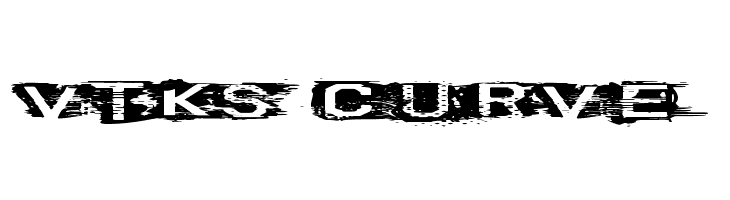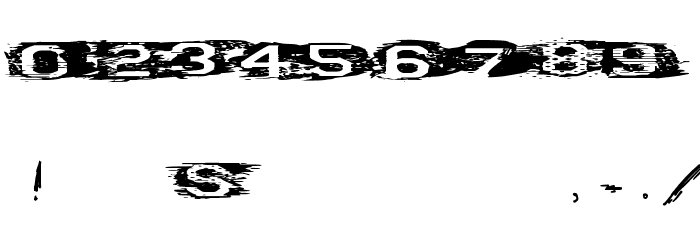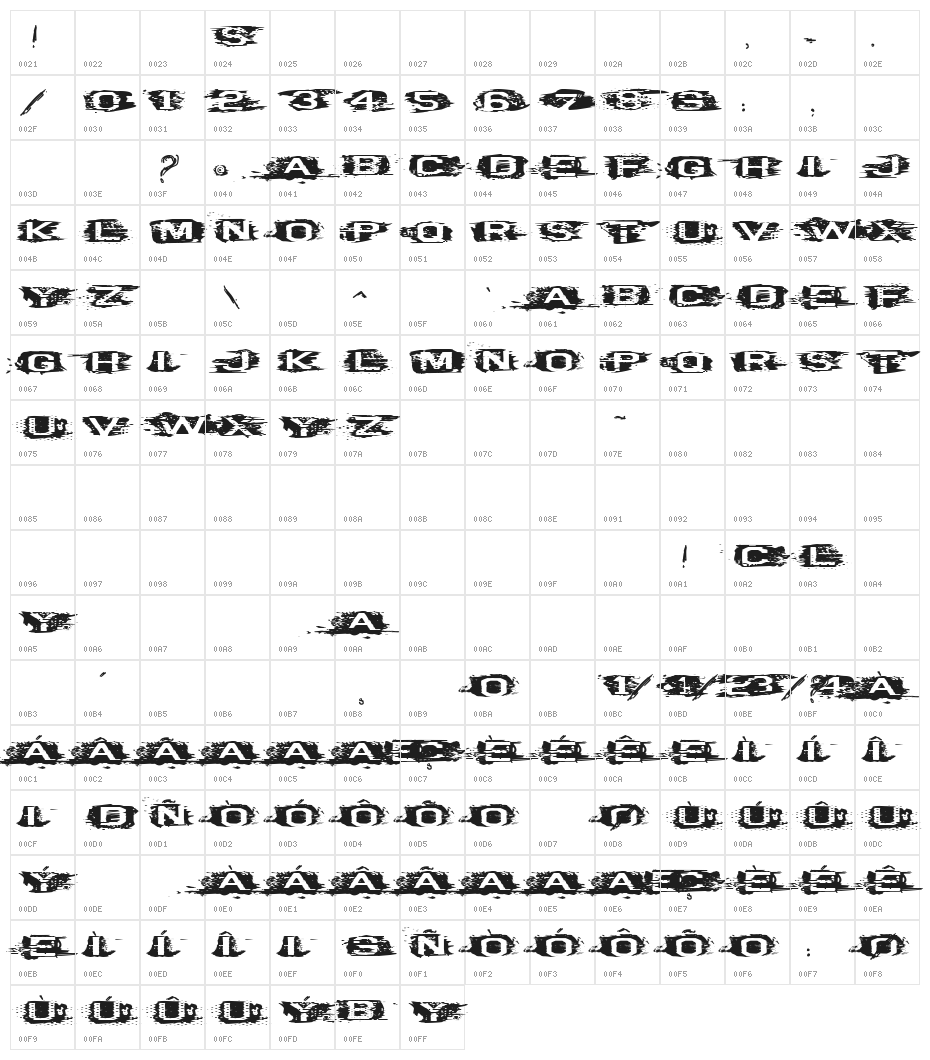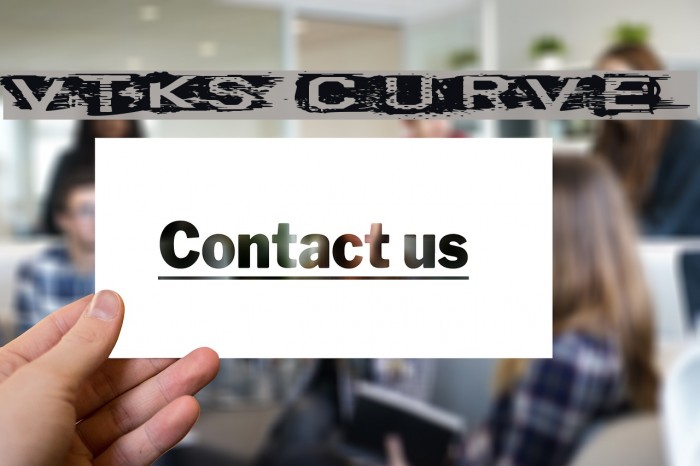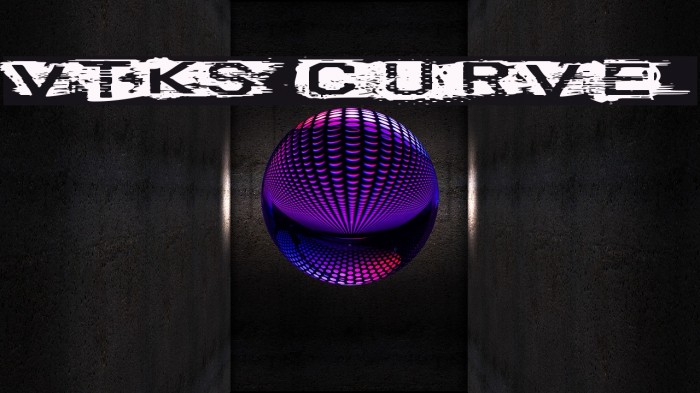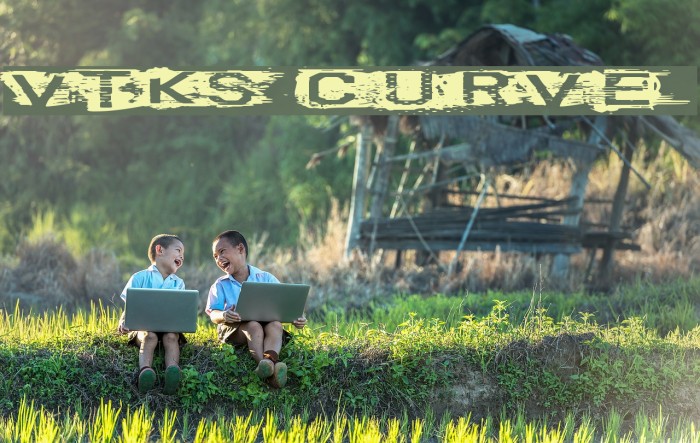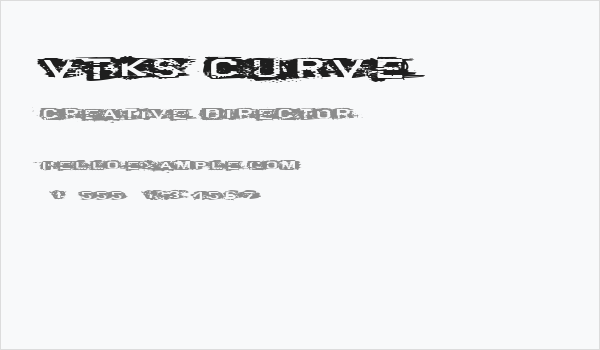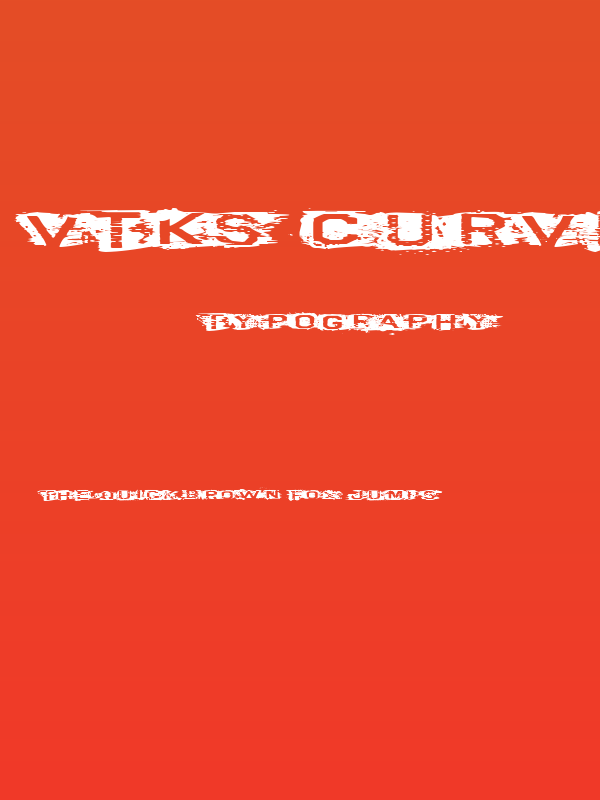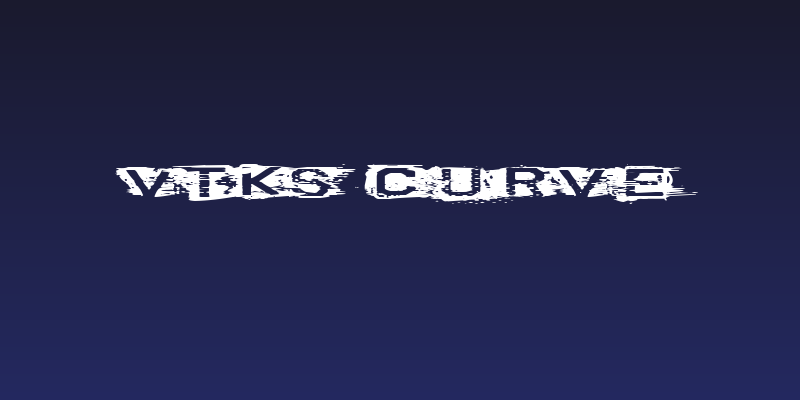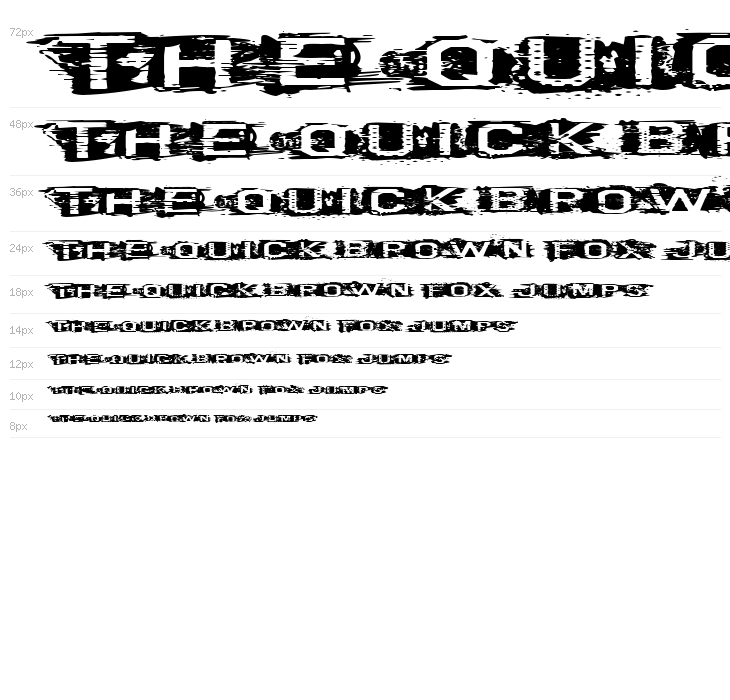
VTKS CURVE Font
VTKS CURVE Description
This font features a distressed and grunge aesthetic, characterized by its rough, textured appearance. Each character appears to be eroded or weathered, giving it a unique, worn-out look. The uppercase letters are bold and prominent, while the lowercase letters maintain the same distressed style. Numbers and special characters follow the same design, ensuring consistency across all elements. The font's style is reminiscent of urban street art or vintage posters, making it ideal for projects that require a bold, edgy statement.
Overall StyleGrunge, Urban, Vintage
Proposed ProjectsIdeal for album covers, posters, streetwear branding, and any design needing an edgy, urban feel.